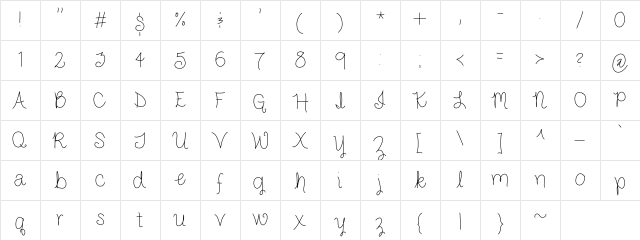
Jake and Abby Medium Free Font
Jake and Abby Medium
Complete Jake and Abby Medium glyph index. Displaying only characters natively supported by Jake and Abby Medium font.
Design Context for Jake and Abby
Jake and Abby is a composed and adaptable typeface that performs quietly and consistently across a wide range of design contexts.